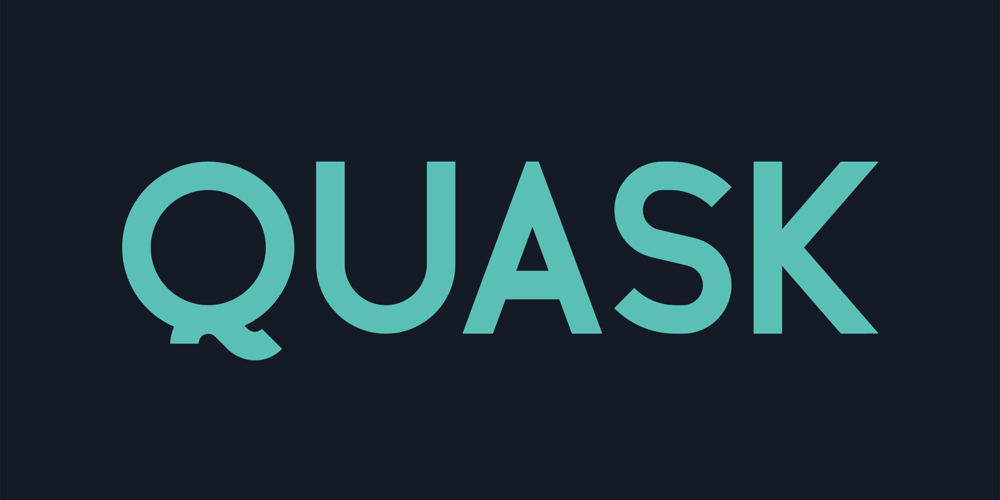
Quask Font Family was designed by Vladimir Fedotov, Plamen Petrov and published by VP Creative Shop. Quask contains 6 styles and family package options. Introducing Bronx – Sans Serif typeface – 6 fontsBronx is casual, clean typeface loaded with 6 different styles. Very versatile font that works great in large and small sizes.Bronx is perfect for branding projects, home-ware designs, product packaging, magazine headers – or simply as a stylish text overlay to any background image.–Uppercase